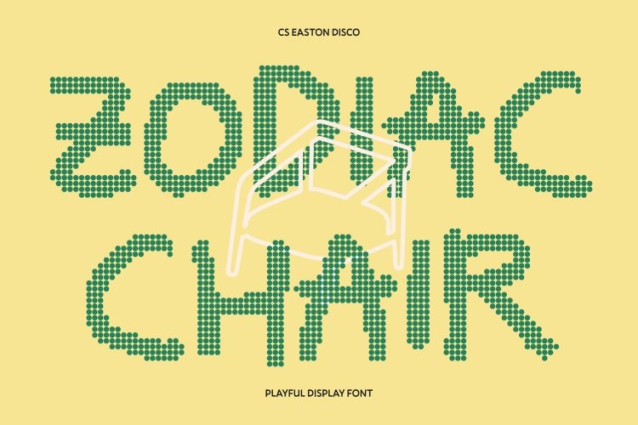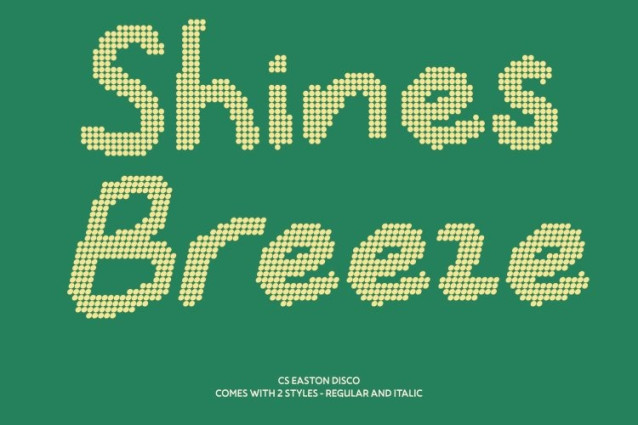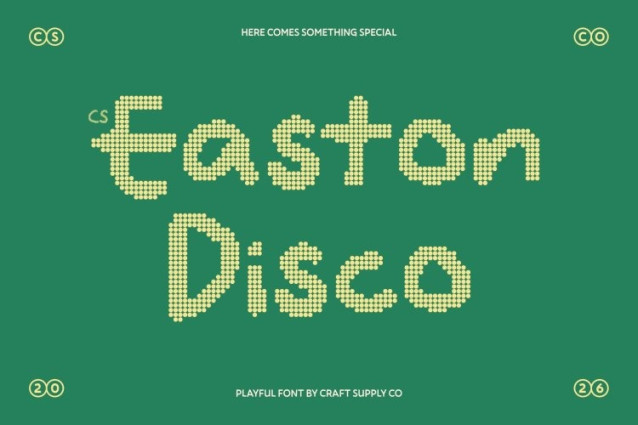
CS Easton disco Font
CS Easton disco Font – This captures the heart of creativity with its natural handwritten flow, now enhanced with a lively disco-inspired dotted texture. Blending a relaxed sans serif structure with freehand expression, this font radiates warmth and spontaneity. The dotted disco details add a rhythmic sparkle to each stroke, giving the letters a playful glow that feels energetic and full of life.
Modern Form with Expressive Sparkle
Balancing modern typography with expressive movement, this font transforms simple text into vibrant visual elements. Its smooth rhythm and clear readability make it adaptable across different design contexts, while the dotted disco style adds a cheerful decorative layer that keeps every composition visually engaging.
Perfect for Playful Branding and Titles
This font shines in playful branding, energetic headlines, and creative titles. Whether used for youth-focused branding, event posters, social media graphics, or quirky packaging, the font delivers a joyful and distinctive tone. Its sparkling texture and handwritten charm help designs feel lively, approachable, and memorable.
Full of Character and Creative Versatility
With its dynamic shapes, handcrafted personality, and disco-inspired texture, this font offers both flexibility and strong visual identity. It’s more than just typography it’s a celebration of creativity that brings freshness, warmth, and sparkling energy to every design.